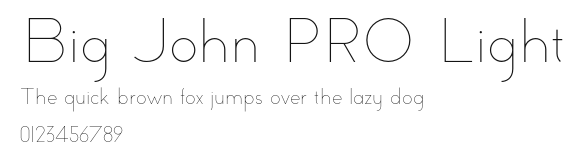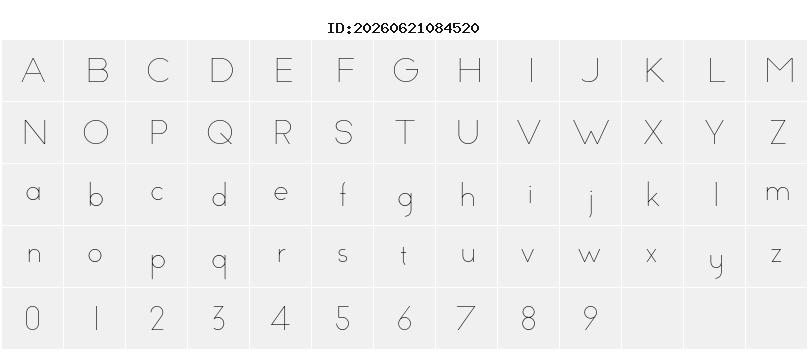
Big John PRO Light Preview
• Font Name: Big John PRO Light
• Full Font Name: Big John PRO Light
• Character Count: 297
• Designer: Ion Lucin & Carlos de Toro
• Manufacturer: Ion Lucin
About Big John PRO Light.otf
Big John PRO Light.otf is a modern, elegant sans-serif font designed for ultimate readability and visual harmony. Perfect for branding, headlines, web design, and print materials.